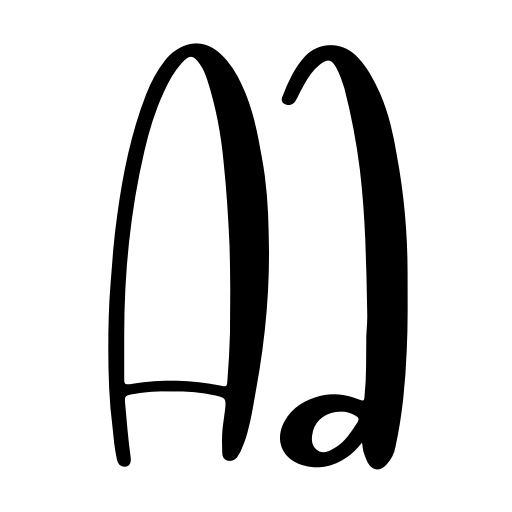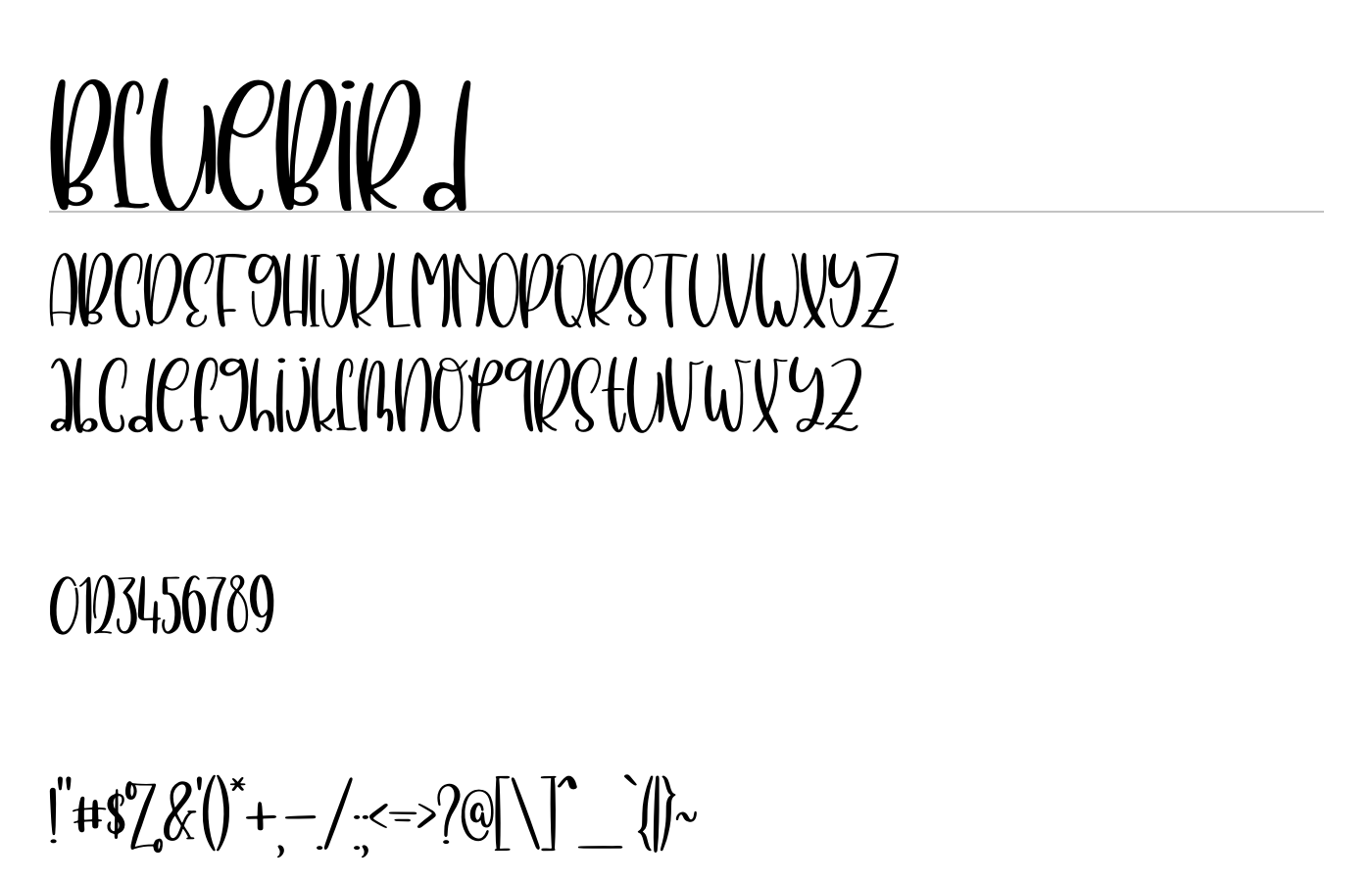
BlueBird is a playful and whimsical handwritten font featuring tall, narrow letterforms with an uneven baseline that adds charm and personality. Its light weight and delicate strokes make it perfect for creative, casual designs like invitations, children's books, or branding that seeks a friendly and approachable feel. This font works best in headlines or decorative text where its unique character can truly shine.
BlueBird Font
About BlueBird Font